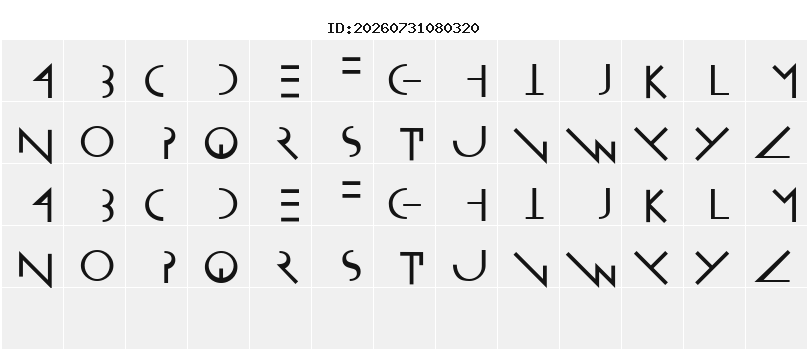
LinearusCentSix Preview
• Font Name: LinearusCentSix
• Full Font Name: LinearusCentSix
About LinearusCentSix.ttf
LinearusCentSix.ttf is a modern, elegant sans-serif font designed for ultimate readability and visual harmony. Perfect for branding, headlines, web design, and print materials.